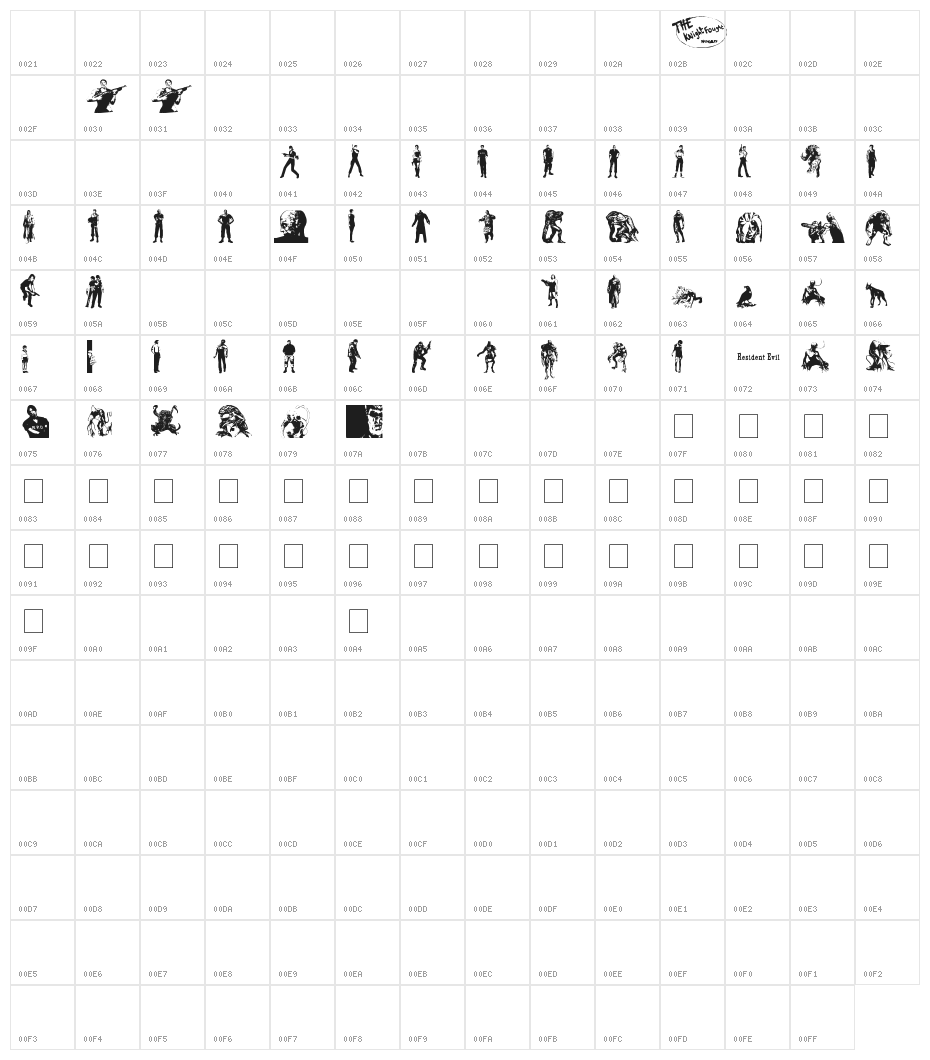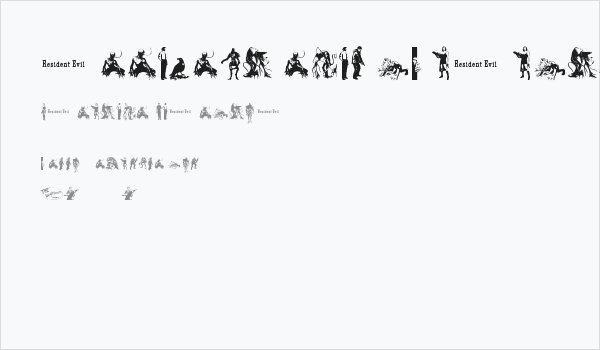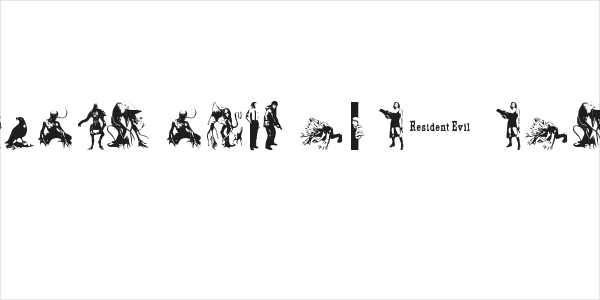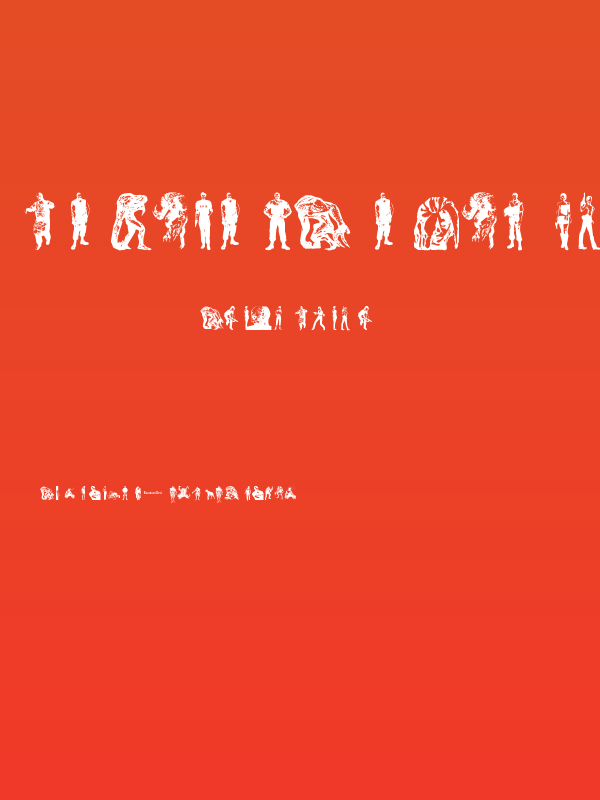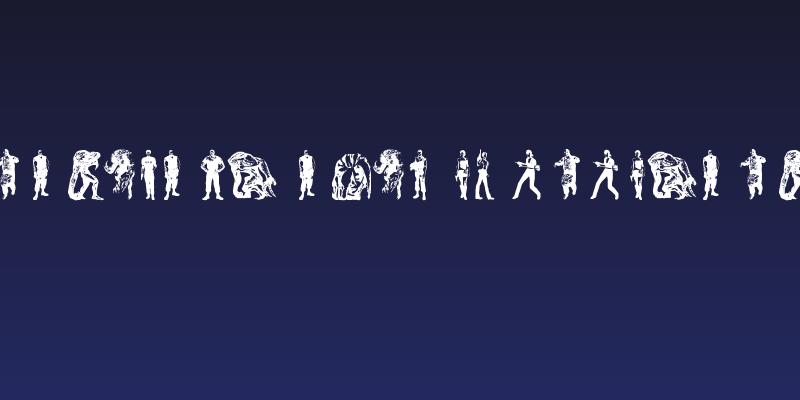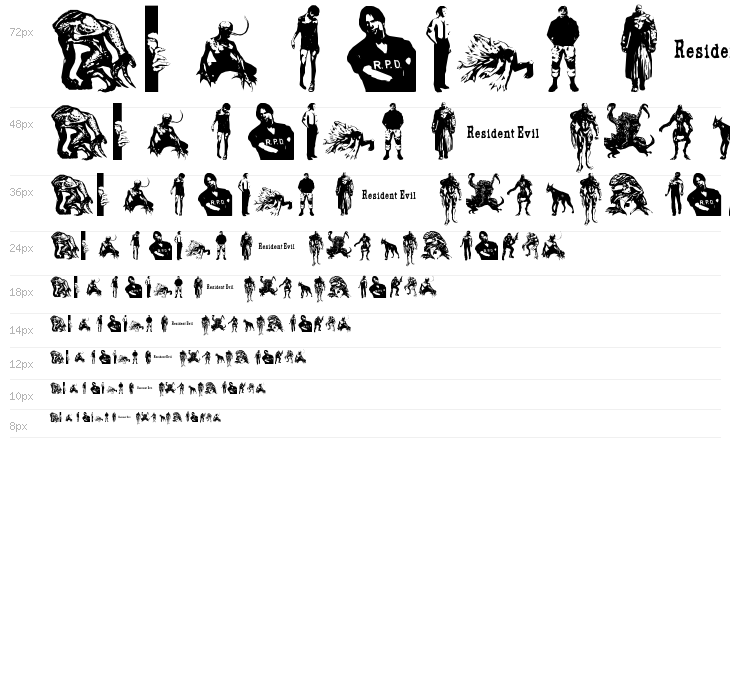
resident evil characters Font
resident evil characters Description
A decorative display font featuring silhouettes of various characters, monsters, and elements inspired by a horror video game series. The glyphs are highly detailed, with each character or symbol represented by a unique black-and-white illustration rather than traditional letterforms.
| Overall Style | Decorative, Thematic, Horror |
| Use Case | Logos, Posters, Themed Headlines, Event Invitations |
| Proposed Projects | Themed posters, fan art, video game promotions, Halloween event materials, novelty merchandise. |